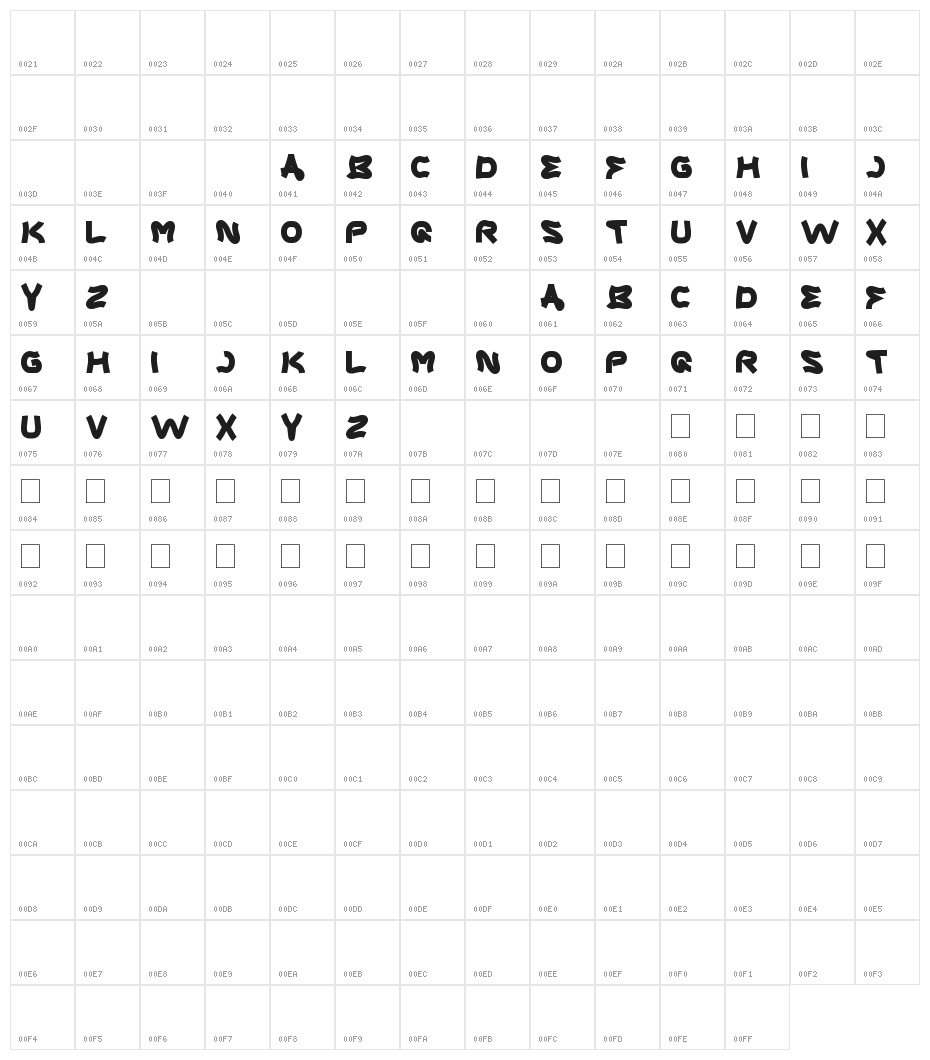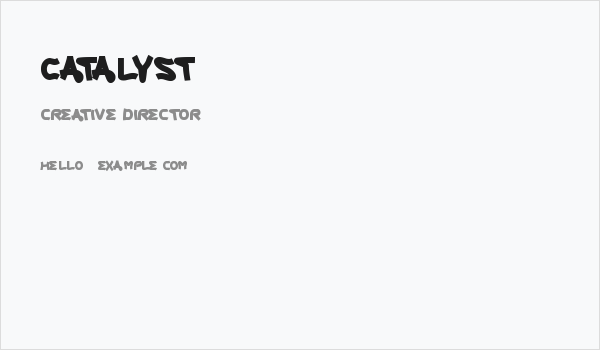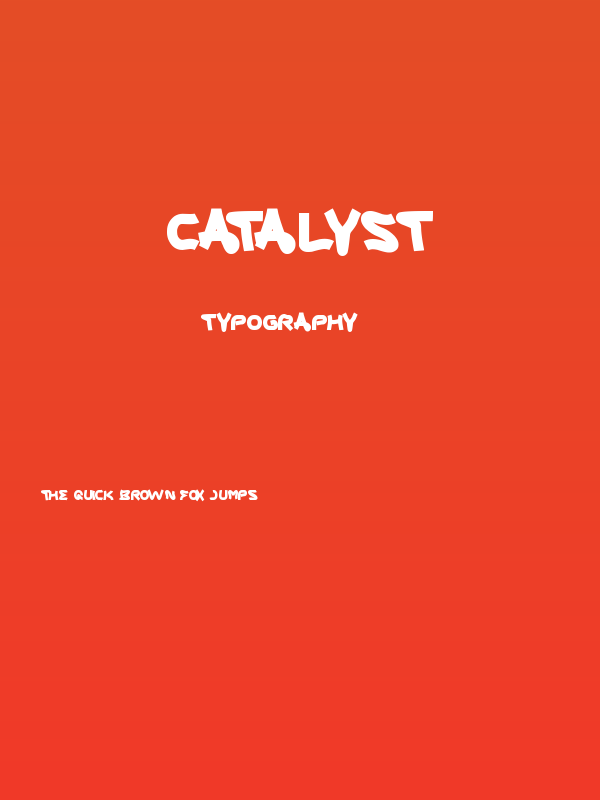
CATALYST Font
CATALYST Description
This font features a bold and dynamic style with a strong presence. The characters are designed with thick strokes and a playful, slightly irregular form that gives it a unique and energetic appearance. The uppercase letters are particularly striking, with exaggerated curves and angles that create a sense of movement and excitement. The overall design is cohesive, with consistent stroke widths and a balanced weight distribution across all characters. This font is well-suited for projects that require a bold statement or a touch of creativity.
| Proposed Projects | Ideal for use in posters, branding, headlines, and any design that requires a bold and energetic typeface. |